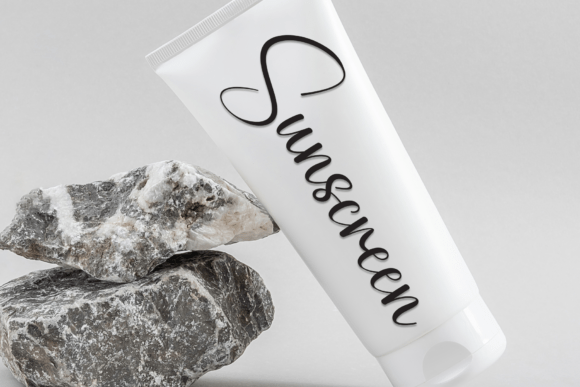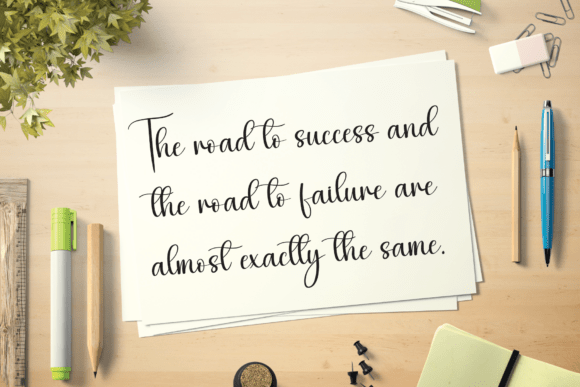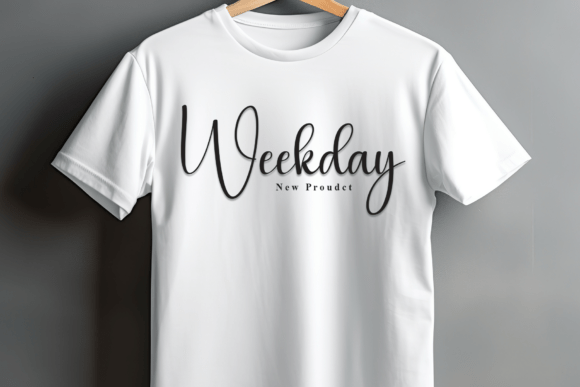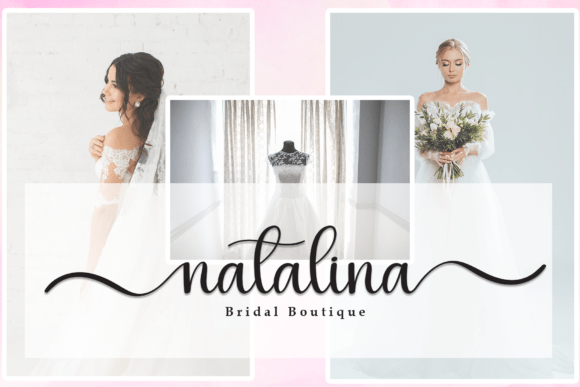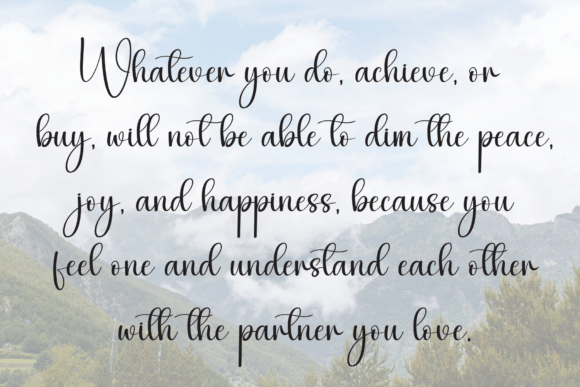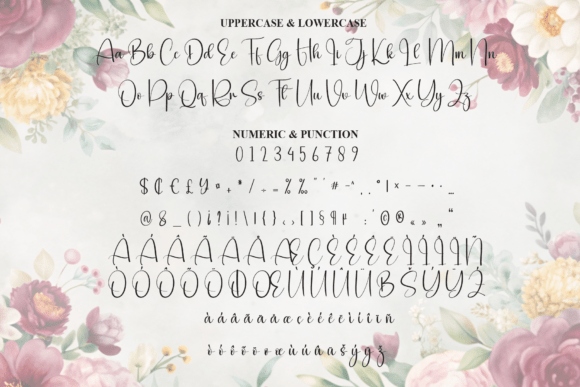
The Designer’s Delight: Angelina Font
Have you ever been in the middle of a design project, and suddenly, you’re stuck on finding the perfect font? I recall a particularly frustrating experience while working on a branding project for a boutique client. The brief was simple: create a logo that exuded elegance, sophistication, and a dash of playfulness. Hours turned into days, and days into weeks, as I scrolled through font after font, none seemed to capture the essence of what I was looking for. That was until I stumbled upon Angelina Font. ✨
First Impressions: A Personal Review
Angelina Font immediately caught my attention with its stylish handwritten script that perfectly blends modern elegance with a playful touch. Its fluid strokes and charming curves bring a personal feel to any design, making it an instant favorite. Here’s what I love about it:
- ✅ Elegant yet playful: Angelina strikes a perfect balance between sophistication and whimsy.
- ✅ Versatile: Suitable for a wide range of design projects, from logos and packaging to invitations and more.
- ✅ Easy to read: Despite its elegant nature, Angelina remains clear and legible, even at smaller sizes.
- ✅ Unique character: It adds a personal touch to designs, setting them apart from more generic fonts.
While Angelina Font has won my heart, it’s not without its quirks. A few things to consider:
- ⚠️ May not be suitable for very formal projects: Depending on the context, Angelina’s playful nature might not fit every project, especially those requiring a more traditional or conservative look.
- 🤔 Requires thoughtful pairing: To maximize its impact, Angelina needs to be paired with complementary fonts that enhance its elegance and playfulness.
The Story Behind Angelina
Angelina Font was inspired by the classic elegance of handwritten scripts and the modern desire for personalization in design. The creator, a typography enthusiast, aimed to craft a font that would bring warmth, sophistication, and a dash of playfulness to any project. Through meticulous design and attention to detail, Angelina was born — a font that embodies both the elegance of traditional scripts and the creativity of modern typography.
| Is Angelina Font suitable for body text? | While Angelina is beautiful, its elegance and playfulness make it more suited for headings and short paragraphs. For longer body text, a more straightforward font might be more readable. |
Angelina Font is more than just a typeface; it’s a design statement. With its elegant yet playful demeanor, it brings a personal touch to any project. Whether you’re a designer looking for a unique font to wow your clients or a hobbyist crafting beautiful invitations, Angelina is sure to impress. Its versatility and charm make it a valuable addition to any designer’s toolkit.